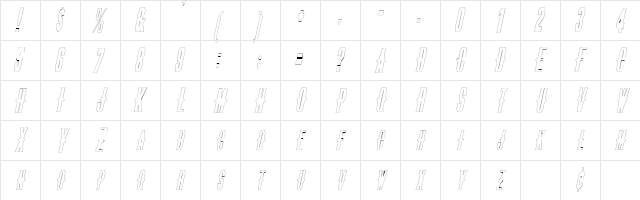
ThornsOutline Oblique
Design Context for ThornsOutline Typeface
ThornsOutline brings ornamental detail and strong personality to headlines and identities, where visual impact matters more than quiet functionality. The slanted form adds forward momentum and visual energy.
Font Pairing: Pair with a clean neutral sans-serif for body copy to let ThornsOutline's character lead without overwhelming the composition.
Pro Tip: Use ThornsOutline exclusively at display sizes — it was designed to be seen, not read at length. Let a neutral companion handle body copy.